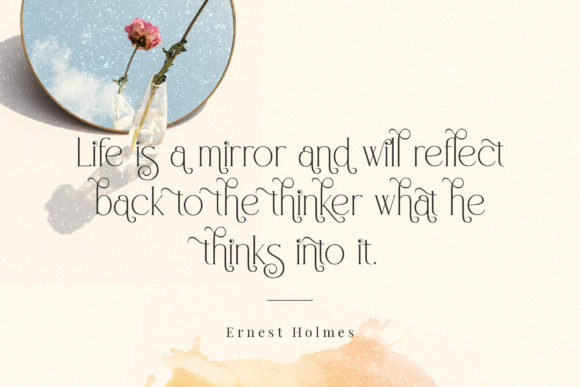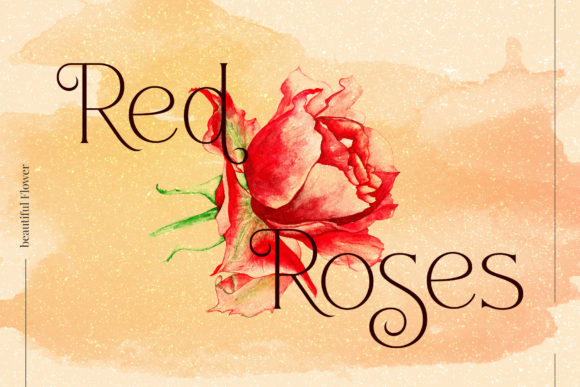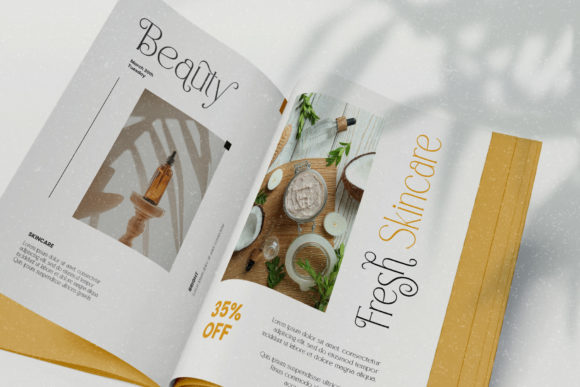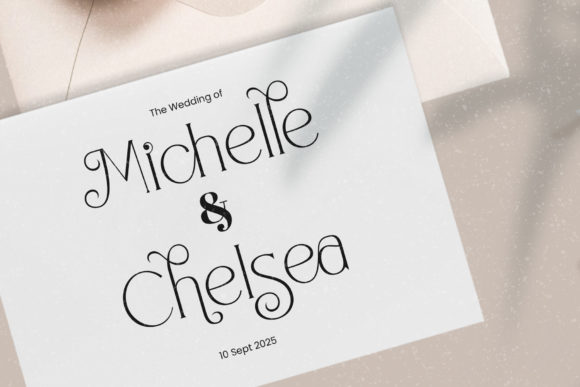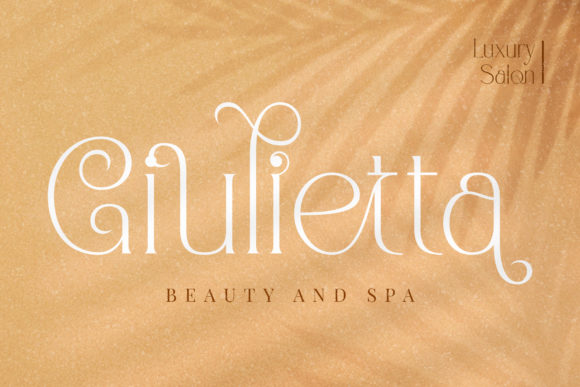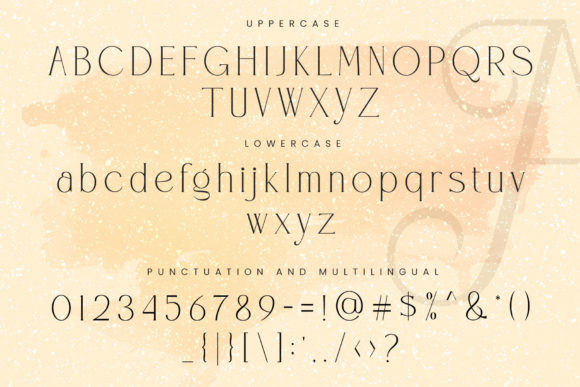
The Blosvet Font: A Designer’s Dream Come True
Have you ever been in the middle of a design project, and suddenly, you just can’t seem to find the right font? I know I have. It was a few months ago when I was working on a branding project for a client who wanted a sophisticated yet elegant look. I spent hours scouring through font libraries, but nothing seemed quite right. That was until I stumbled upon the Blosvet font. It’s been a game-changer for me, and I’m excited to share my experience with you!
First Impressions: A Bold, Stylish Serif Font
Blosvet is a bold, thin lettered, and stylish serif font that immediately caught my attention. Its ravishing style is perfect for designers, crafters, and creative hobbyists looking to elevate their designs. What I love about Blosvet is its unique blend of classic and modern elements, making it versatile for various design projects.
What I Love About Blosvet ✨
- ✅ High-quality design: Blosvet’s bold and thin lettering is both stylish and legible.
- 🌈 Versatile: Perfect for branding, packaging, and various digital and print materials.
- ⚠️ Learning curve: With so many glyphs and swashes available, it may take some time to get familiar with the font’s features.
- ⚠️ Not suitable for body text: Due to its bold and thin design, Blosvet is best used for headings and titles rather than large blocks of text.
Blosvet was designed with the intention of creating a font that’s both stylish and versatile. While the designer’s exact inspiration may be unknown, it’s clear that Blosvet was crafted with attention to detail and a passion for typography. Whether you’re a designer, crafter, or creative hobbyist, Blosvet is sure to inspire your next project.
Q: Can I use Blosvet for body text, or is it better suited for headings?
A: While Blosvet is a beautiful font, it’s best used for headings and titles due to its bold and thin design. For body text, consider using a font with better legibility.